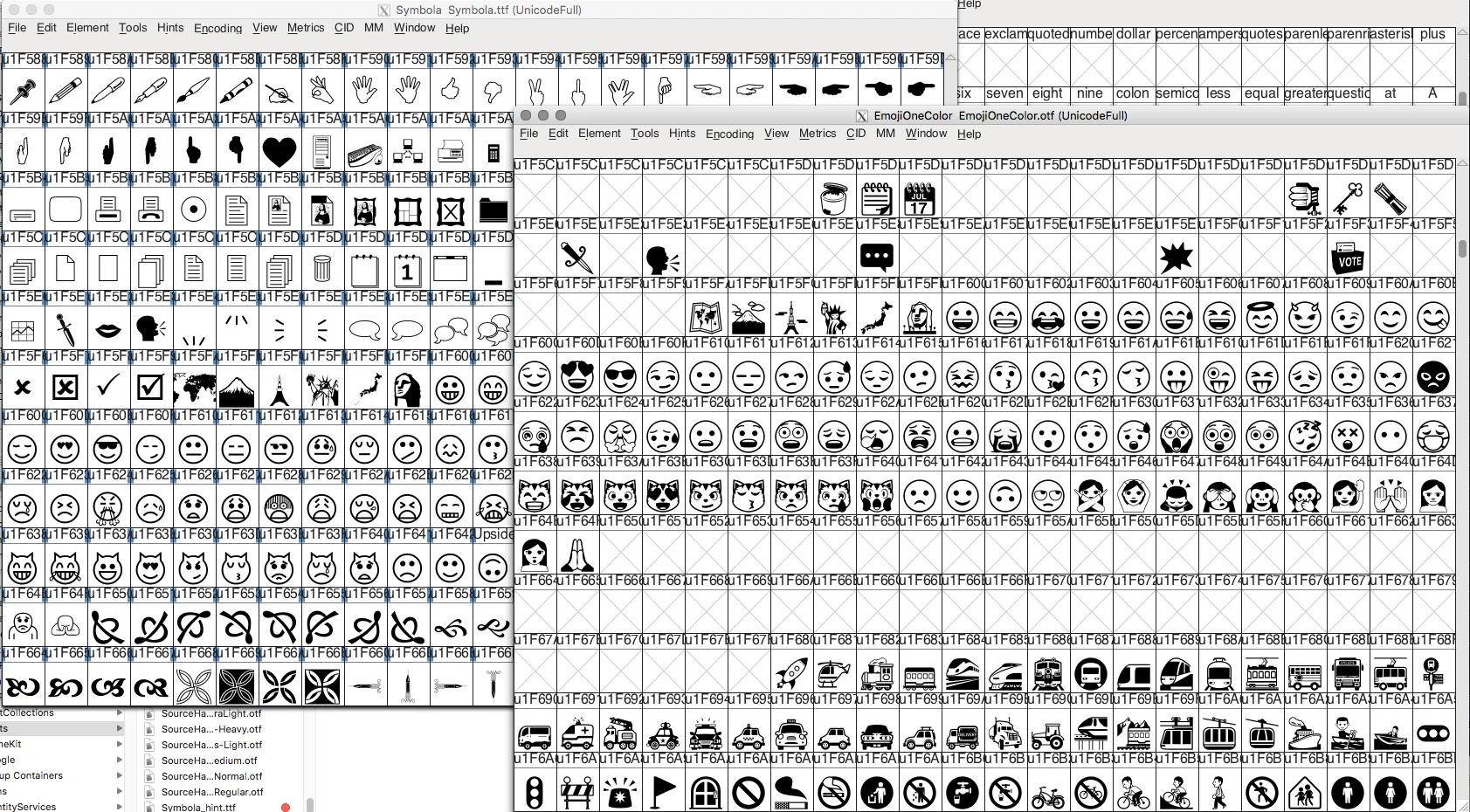
EmojiOne font won't render black & white emojis on new Adobe Apps. Why??
We use EmojiOne font in AI CC 2015 and outline the emoji characters for use in metal etching.
When testing with AI CC 2019 or later we find the B&W version of the EmofiOne font is inaccessible and ONLY the color characters are available which are useless to us. We could jump through several hoops to convert them to B&W, but in a production environment this is not practical.
Why is there a "Fallback" font embedded in EmojiOne that is completely unavailable in the latest versions of Adobe Illustrator? B&W emojis are extremely useful in our market and I'm sure wer'e not alone. Adobe, if you're listening, please give us a B&W version of EmojiOne (since it's already available in your older software).
Edit: Here's a simple example of EmojiOne characters in AI CC 2020. The B&W images were outlined in AI CC 2015 and pasted into 2020. Adobe, just give us a "Black and White" option for this font.
This font has two glyph tables. One is a color SVG table, and the other is a glyf table provided for applications that do not support color glyphs.
Since CC2019 and later, color glyphs are supported, glyphs in SVG format have priority and color display. In this case, the user cannot select an outline glyph.
Illustrator before CC2018 cannot display color glyphs and all color glyphs are fall back to the outline glyph because it cannot recognize it.
If you do not want to use color glyphs, you have to use Illustrator before CC2018. In addition, it is possible to use fonts created to display pictograms such as Symbola as outline glyphs.
Thanks for the explanation, Ten A. I understand the reason, I just don't understand why Adobe does not make the B&W version accessible in the latest versions of CC apps. If the font contains a B&W "Fallback" why not make it an option just like "Bold, Italic, etc." in other fonts? Staying with AI CC 2015 is not an option when it is not even compatible with the latest Mac OS versions (starting with Mojave). We're being forced to work with old Adobe software because of an artitial limition imposed by Adobe's lack of foresight.